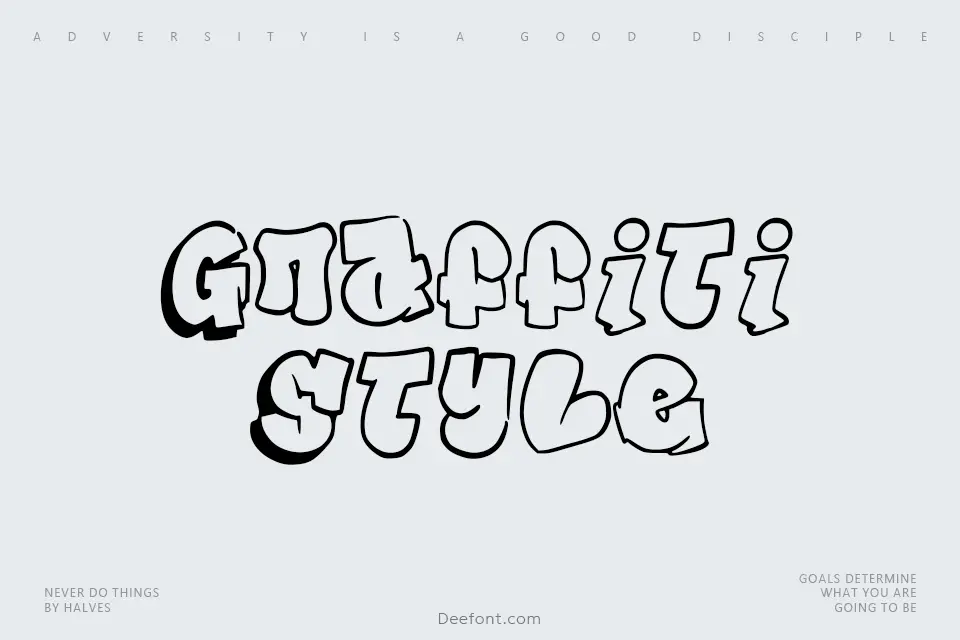
Graffiti Style Font
Graffiti Style is a vibrant, hand-drawn graffiti font that brings urban street art energy to your designs. With its dynamic characters and authentic letterforms, this font captures the essence of classic graffiti writing styles, making it perfect for posters, album covers, branding, and creative projects that demand bold visual impact and artistic flair.